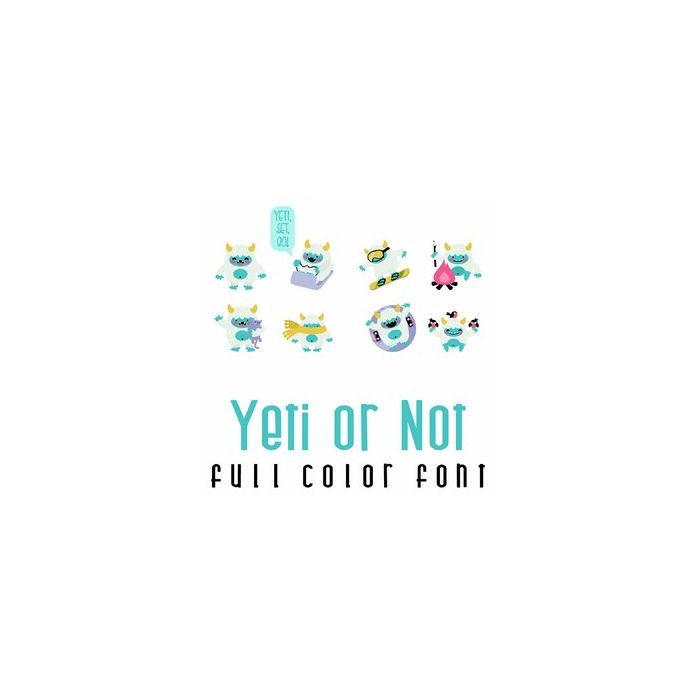
This adorable full-color doodlebat font features 26 adorable yeti's playing in the snow. Perfect for cards, crafts, gifts, decor, scrapbook pages, planner stickers, and more!